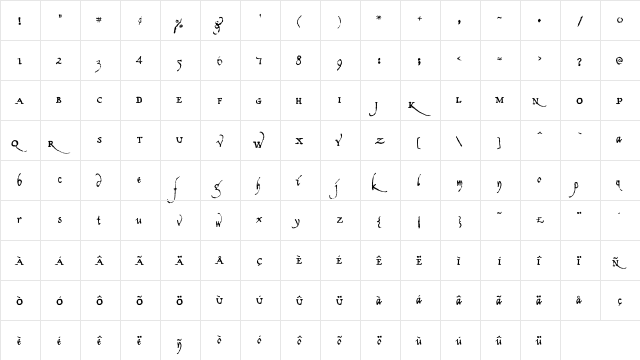
Americratika Regular
Design Context for Americratika Typeface
Americratika is a composed and adaptable typeface that performs quietly and consistently across a wide range of design contexts.